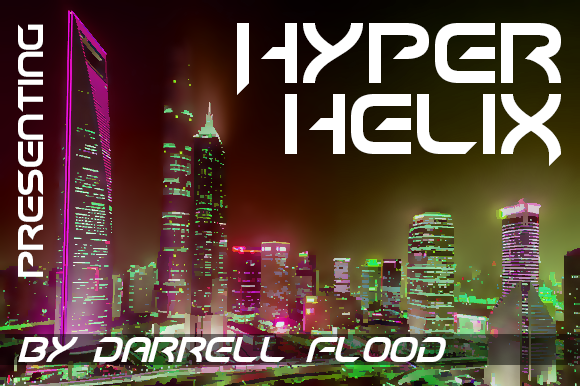
Introduction to Hyper Helix Font
Hyper is a high-impact futuristic font with both curves and sharp edges.
Perfect for sci-fi themes and tech presentations .
Key Features of Hyper Helix Font